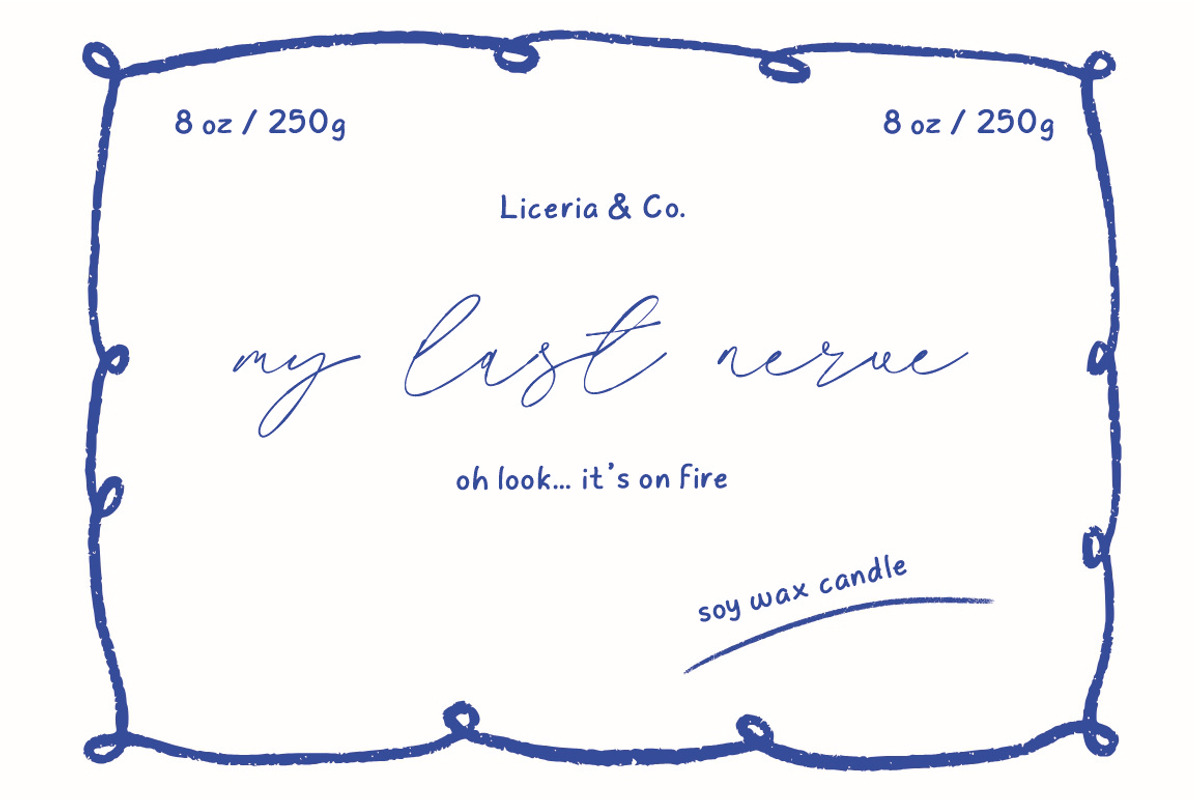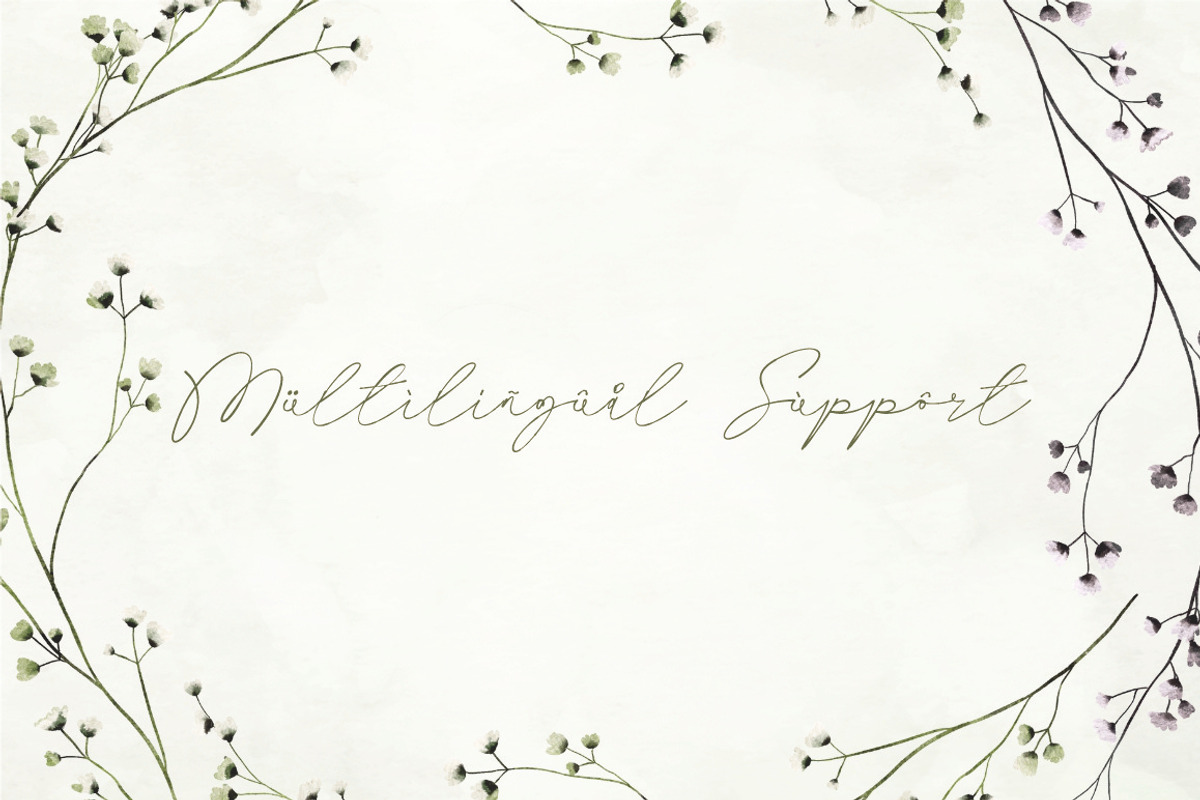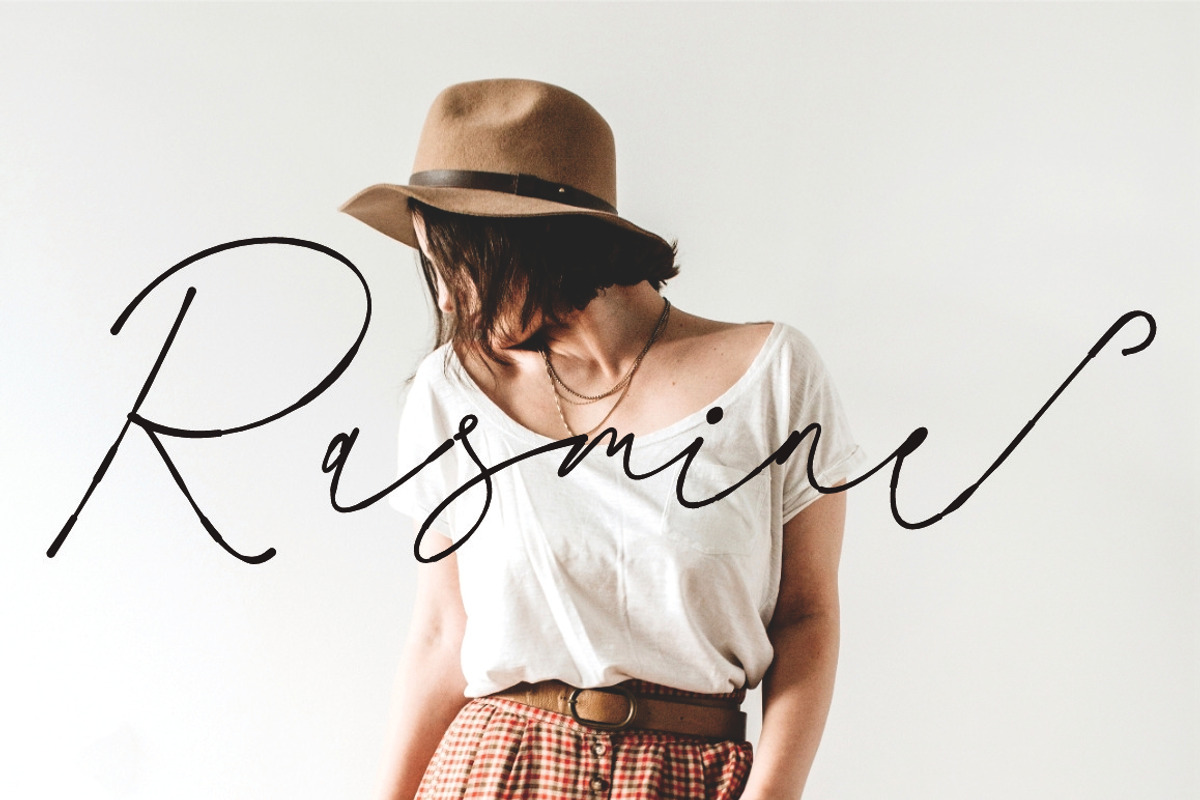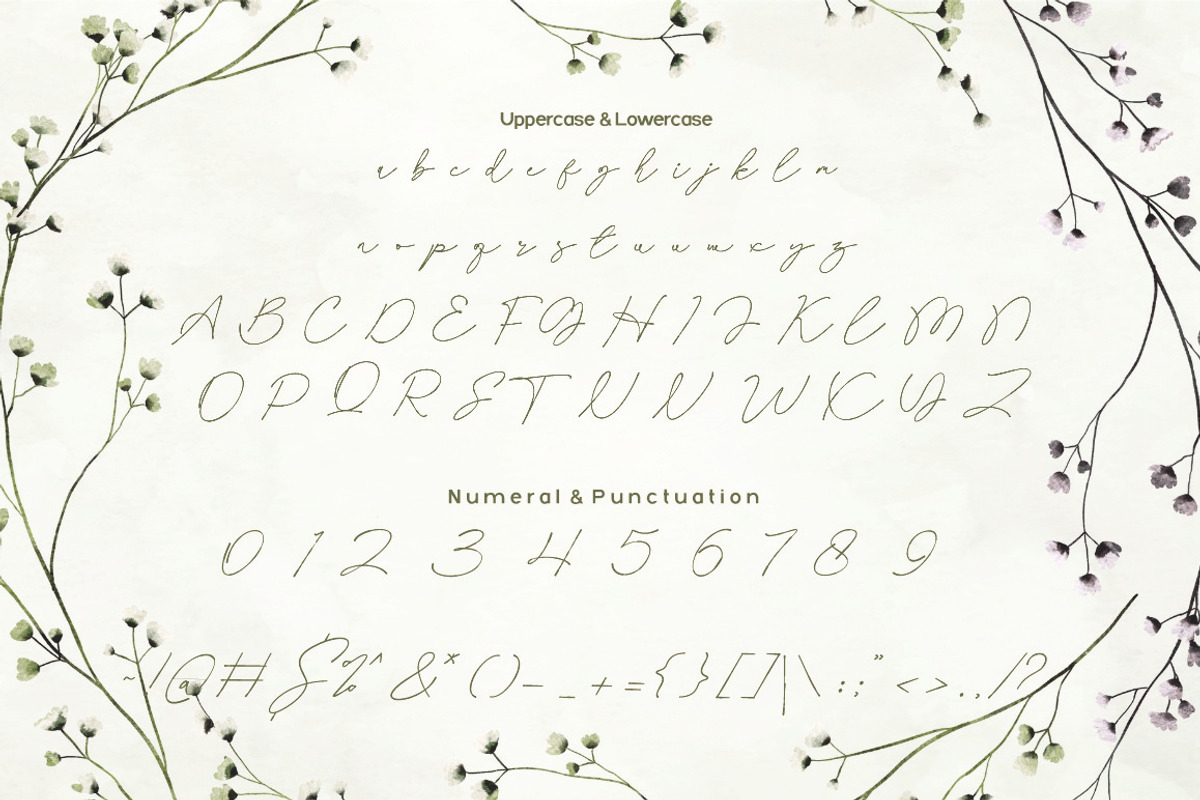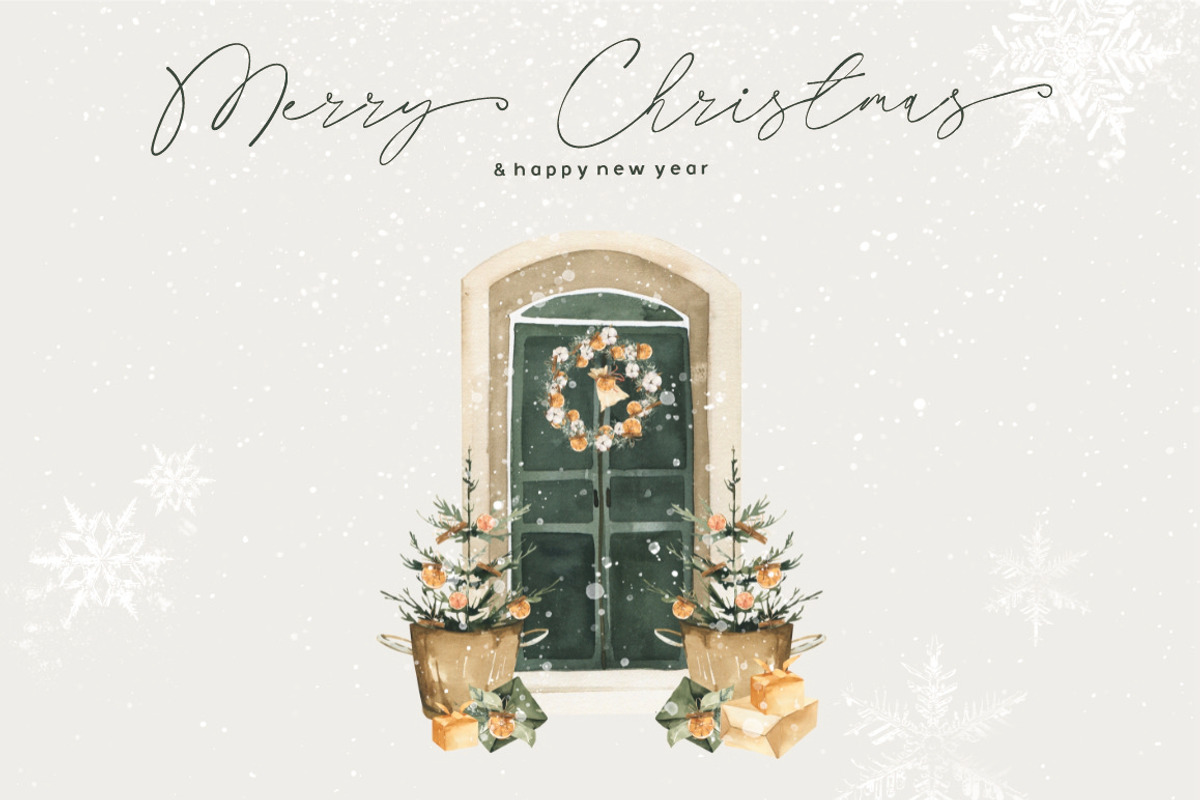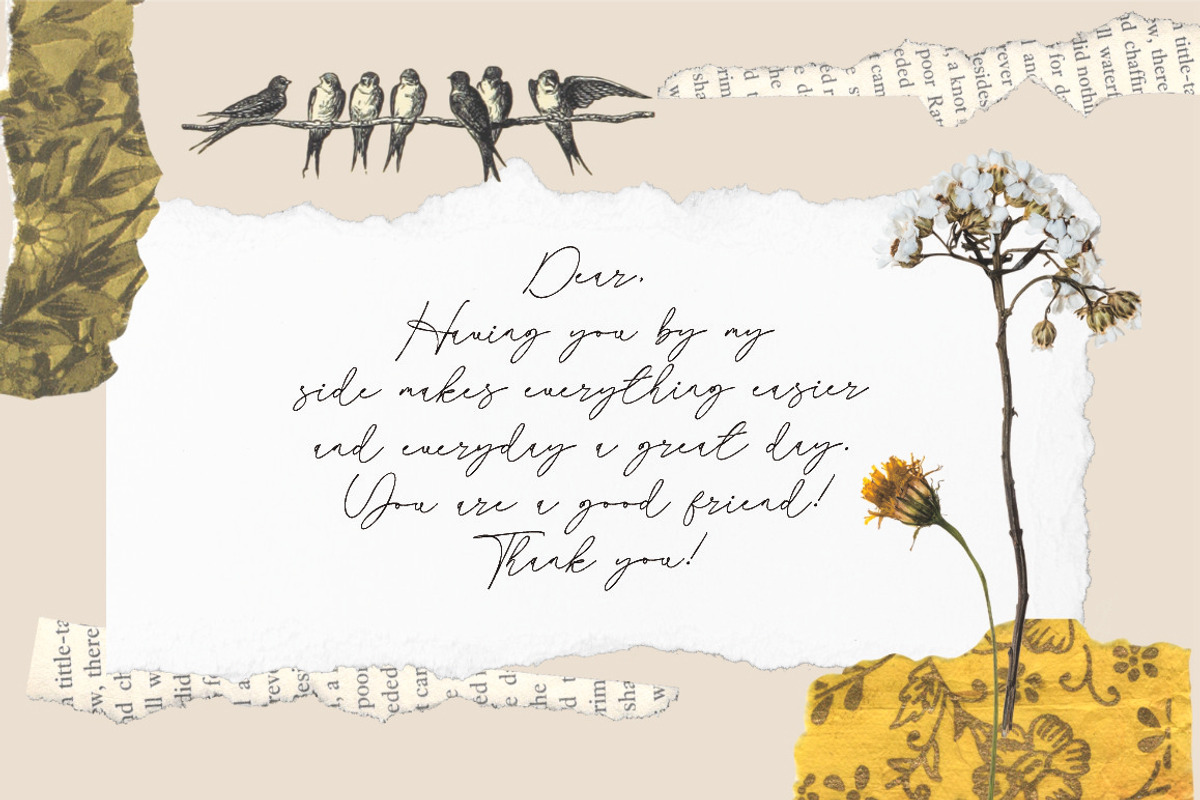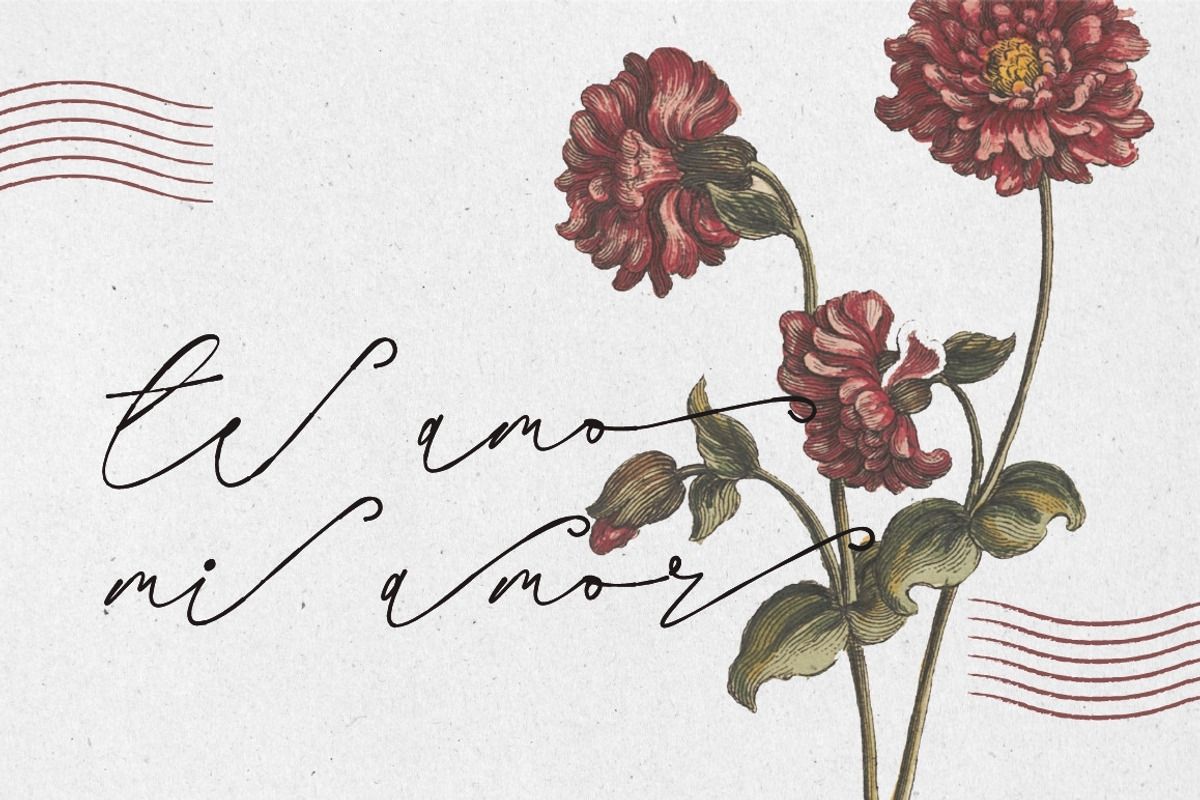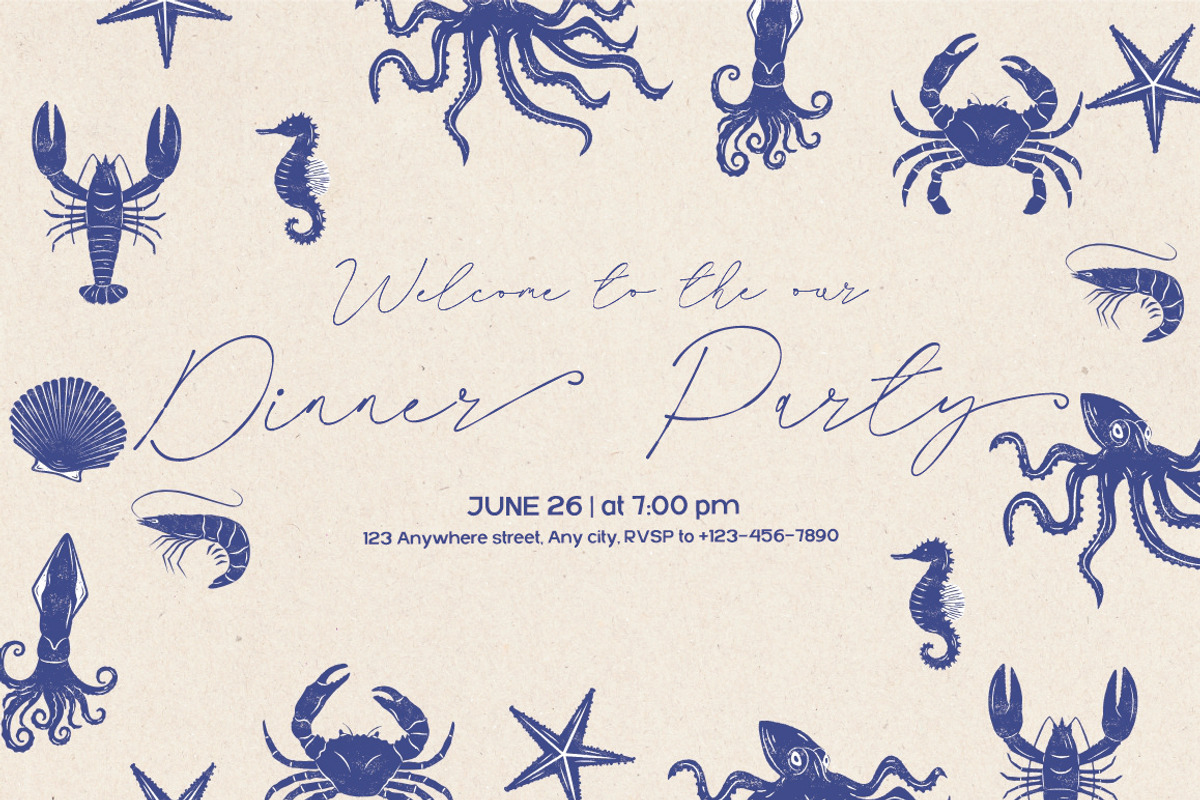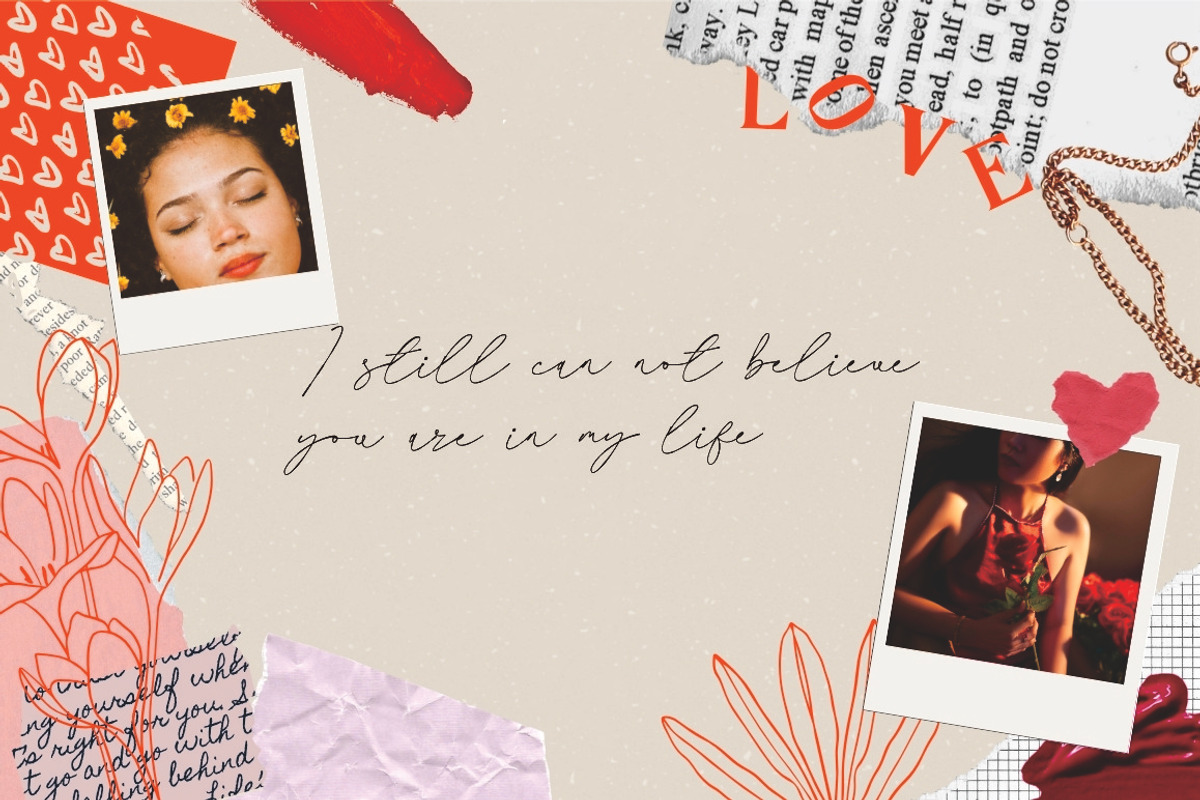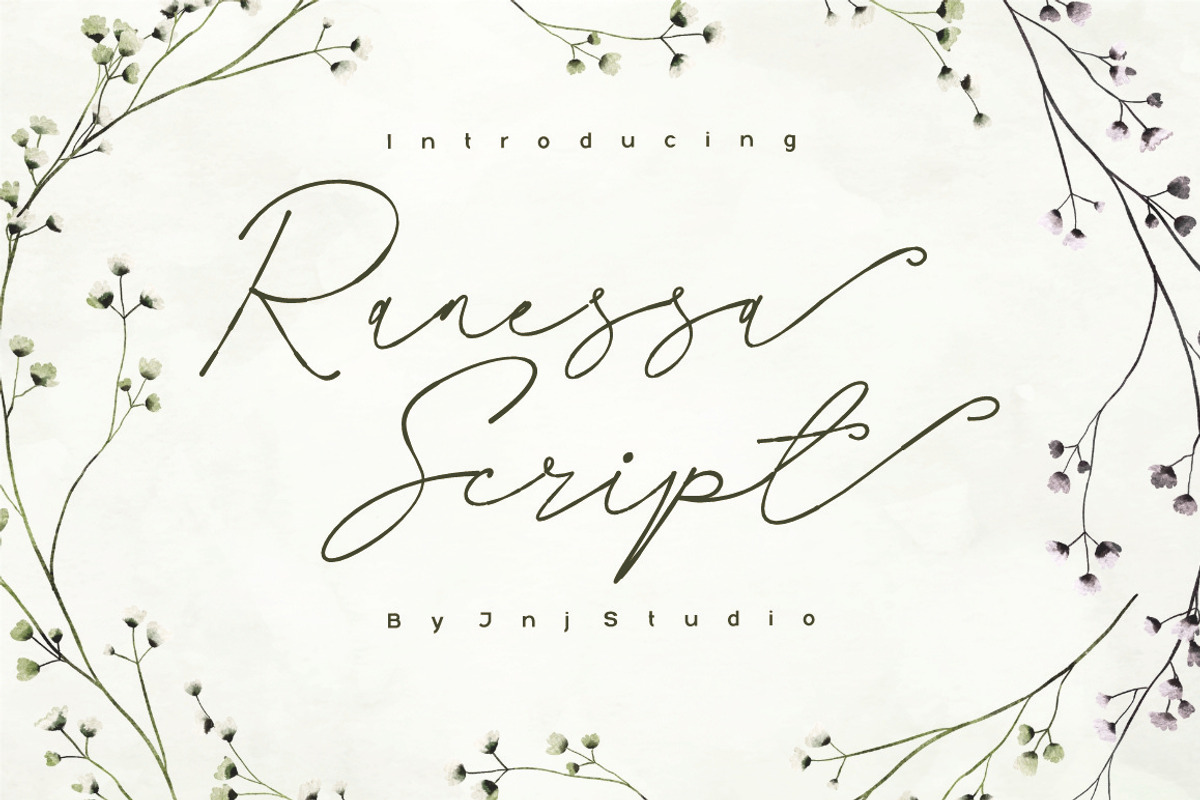
Ranessa Script
Ranessa is a graceful script font that blends elegance with a natural handwritten flow. Designed with smooth curves and balanced strokes, Ranessa delivers a warm, romantic character while remaining clean and readable. Its fluid letterforms create a sense of movement, making it perfect for branding, wedding designs, invitations, logos, social media graphics, and elegant packaging.
With its timeless charm and modern simplicity, Ranessa brings a soft yet confident personality to any design—ideal for creators who want to add a touch of beauty, emotion, and sophistication to their work.
- Stylish lowercase letters
- Ideal for personal branding, stationery, and packaging